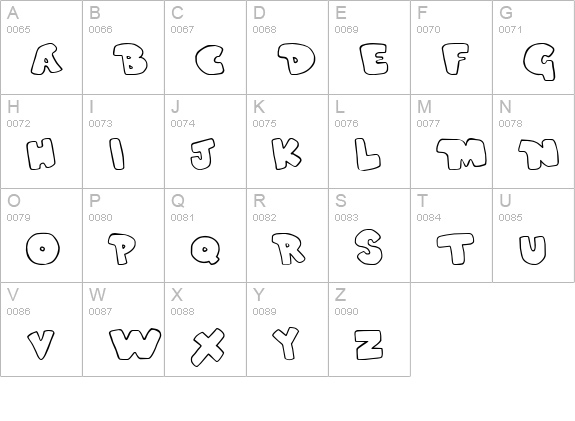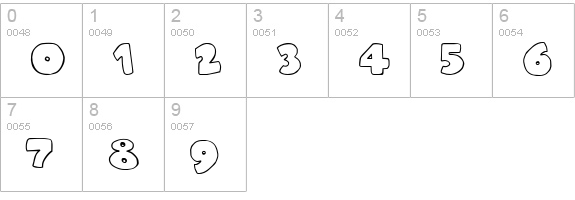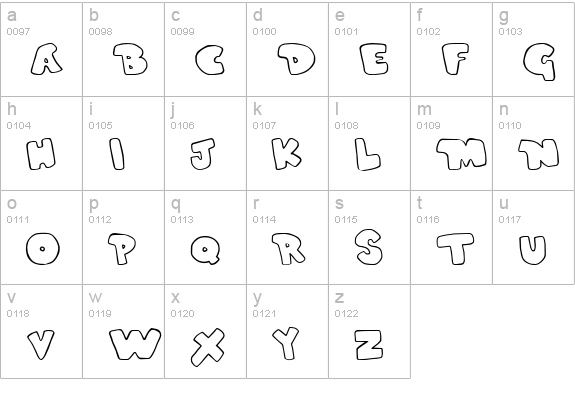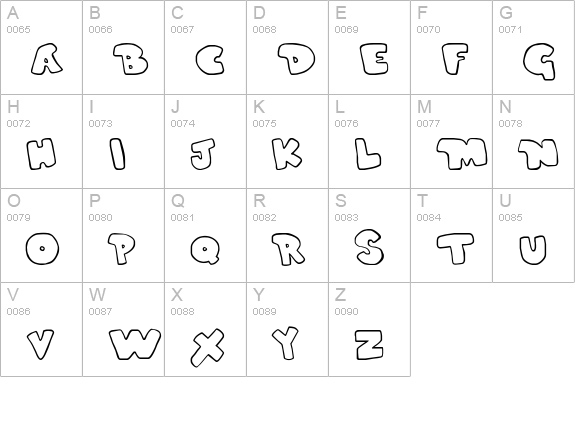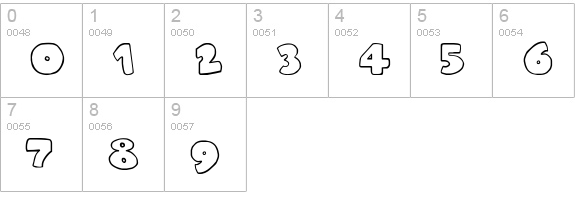
Duped Font Details
Introducing Duped font, a versatile and modern typeface designed to make your projects stand out. With its sleek lines and stylish flair, Duped font effortlessly combines sophistication with a touch of playfulness, making it perfect for a wide range of design applications. What makes Duped font even more appealing is that it is available for free download at FontsMarket.com. This means you can easily add this eye-catching font to your collection without breaking the bank. Whether you're working on branding, advertising, web design, or any other creative project, Duped font is sure to add a touch of elegance and charm. With its unique personality and timeless appeal, Duped font is a must-have for any designer looking to make a statement. Download it for free today and elevate your designs to the next level!